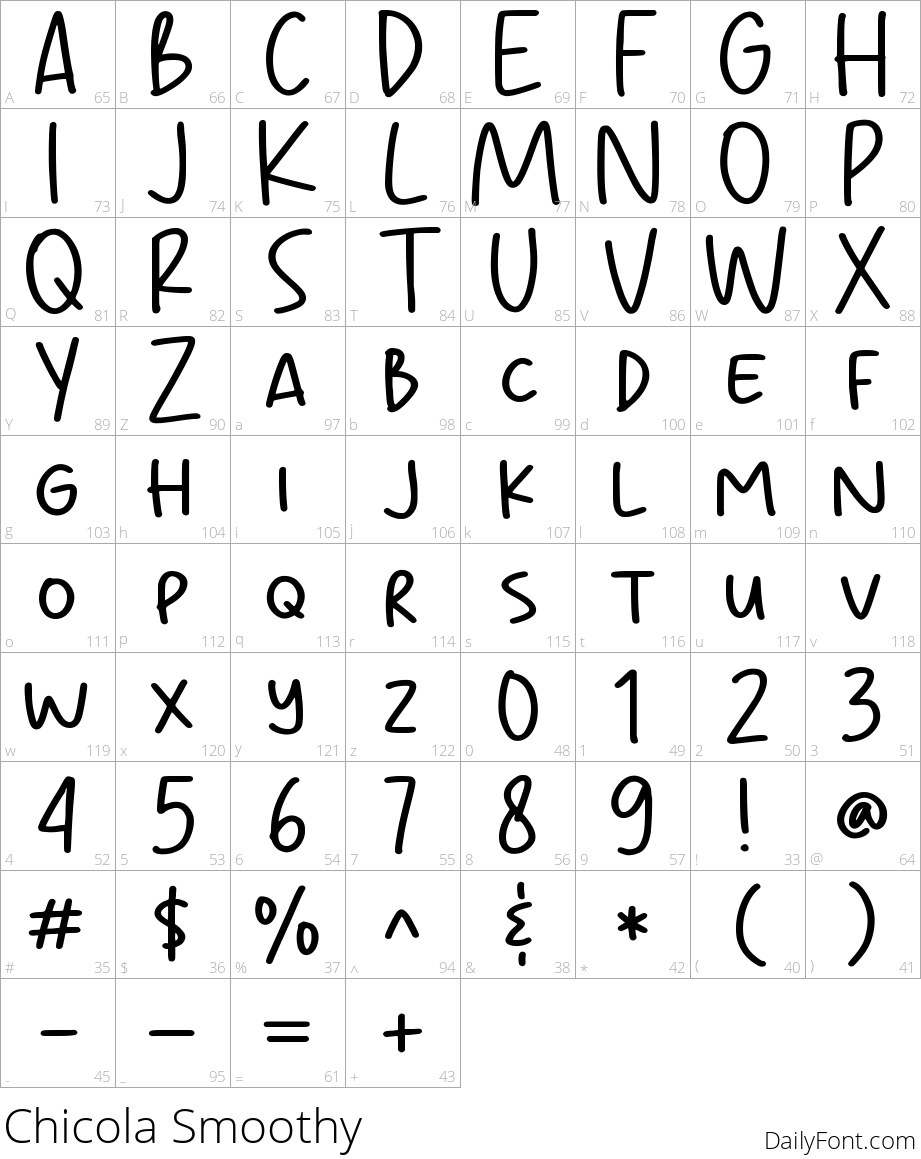
Chicola Smoothy
Chicola Smoothy is a delightful handwritten font designed to bring a touch of warmth and personality to your projects. With its cute and simplistic style, this font is ideal for creating engaging chalkboard quotes, educational materials, and more. Its authentic appearance makes it perfect for adding a realistic, handcrafted feel to your designs, whether you're crafting invitations, social media posts, or unique branding elements.
This versatile font is easy to read and works well in various contexts, making it a great choice for teachers, crafters, and anyone looking to enhance their visual storytelling. Elevate your creative endeavors with Chicola Smoothy and watch your audience engage more with your captivating text. Its friendly character is sure to resonate with viewers, making your messages feel approachable and inviting, and ensuring your designs stand out in a crowded digital space.